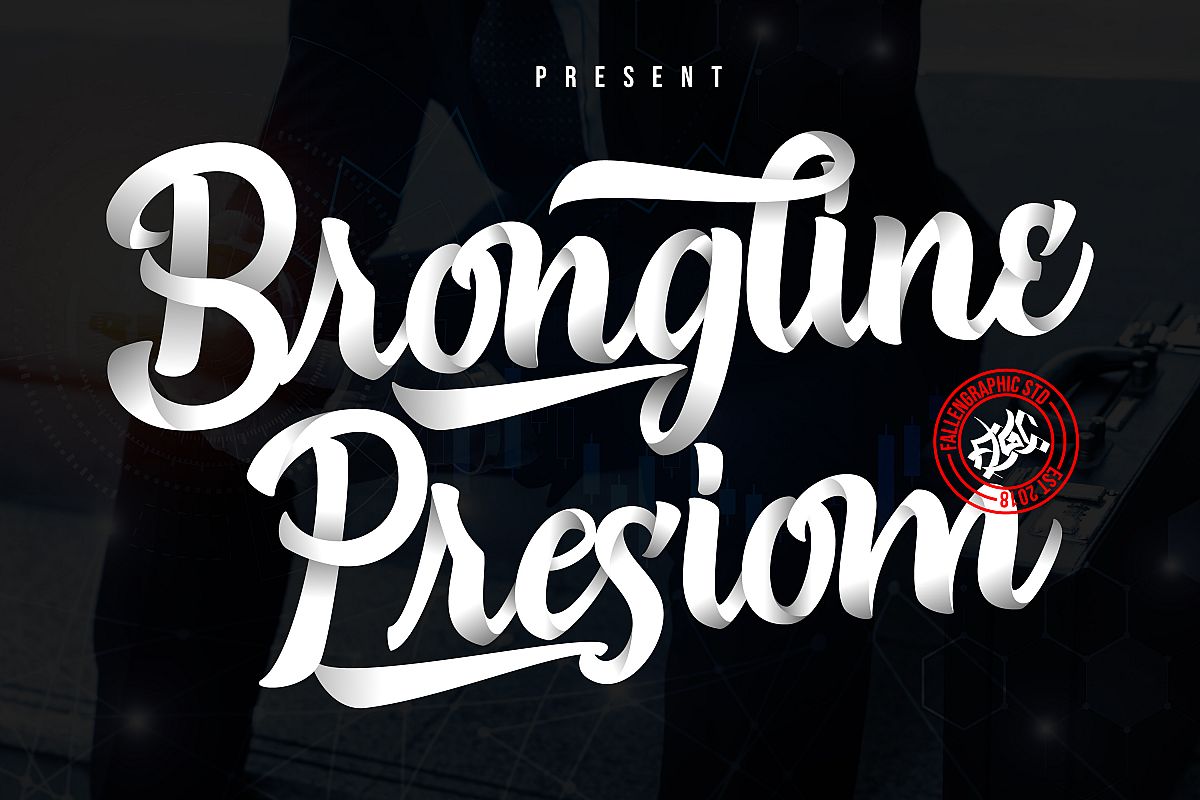
Brongline Presiom Script Font
Brongline Presiom is a modern bold script font. It is perfect for Logo, branding, and much more!
• Standard Ligatures
• Stylistic alternate ( SALT )
• Stylistic Set SS01-SSO5